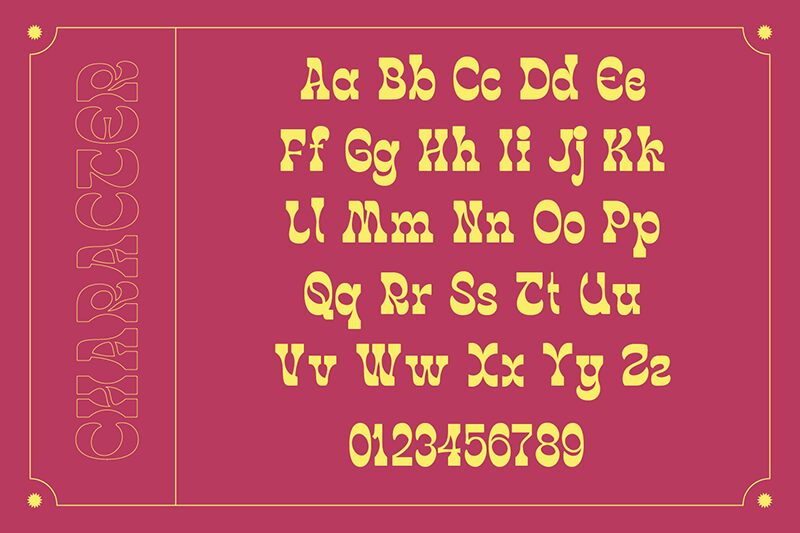
Bergas, the retro display font designed by Lantype Studio, is the perfect choice for projects that call for a bold and unique typeface. Its semi-condensed width allows it to stand out on posters, logos, and branding materials without taking up too much space. The bold weight of Bergas exudes confidence and strength, making it a great choice for advertising campaigns or product packaging. Whether you're looking to add a vintage touch to your design or simply want to make a statement with your typography, Bergas is sure to impress.
Bergas